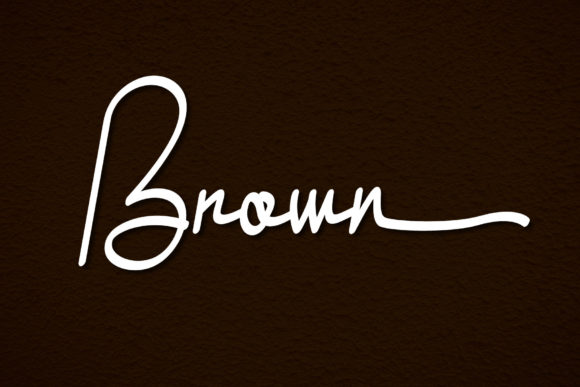
The Brown Font: A Fashionable Script to Elevate Your Designs
A Personal Review: What I Love About Brown Font
As a designer, I’m always on the lookout for fonts that are not only beautiful but also versatile and easy to use. The Brown Font checks all those boxes and more! Here’s what I love about it:
• ✨ Exquisite craftsmanship: The Brown Font is meticulously designed with intricate details that give it a luxurious feel.
• ✅ Highly versatile: Whether you’re working on a branding project, a wedding invitation, or a packaging design, this font adapts seamlessly to various themes and styles.
• 💡 PUA encoded for easy access: The Brown Font is PUA (Private Use Area) encoded, which means you can easily access all the glyphs, swashes, and alternates without any hassle.
While the Brown Font is an excellent addition to any design library, there are a few minor things to keep in mind:
• 🤔 Learning curve for beginners: If you’re new to using OpenType features or glyphs, it might take some time to get familiar with how to access and use them.
• ⚠️ Not ideal for body text: Due to its script nature and intricate details, the Brown Font is best suited for headlines, titles, or short paragraphs rather than lengthy body text.
The Story Behind Brown Font
The Brown Font was crafted with passion by a typographer who aimed to create a script that embodies both elegance and approachability. Inspired by classic calligraphy and modern design trends, this font is the result of meticulous craftsmanship and attention to detail.
Font Name Brown Font
Author Designvector10
Is Brown Font suitable for body text? No, due to its intricate details and script nature, Brown Font is best used for titles, headlines, or short paragraphs.
How do I access the glyphs and swashes in Brown Font? Brown Font is PUA encoded, allowing easy access to glyphs and swashes through the font’s character map or compatible design software.
In conclusion, the Brown Font is a versatile and elegant script font that can elevate any design project. With its exquisite craftsmanship, PUA encoding for easy glyph access, and compatibility across various platforms, it’s an excellent addition to any design library.